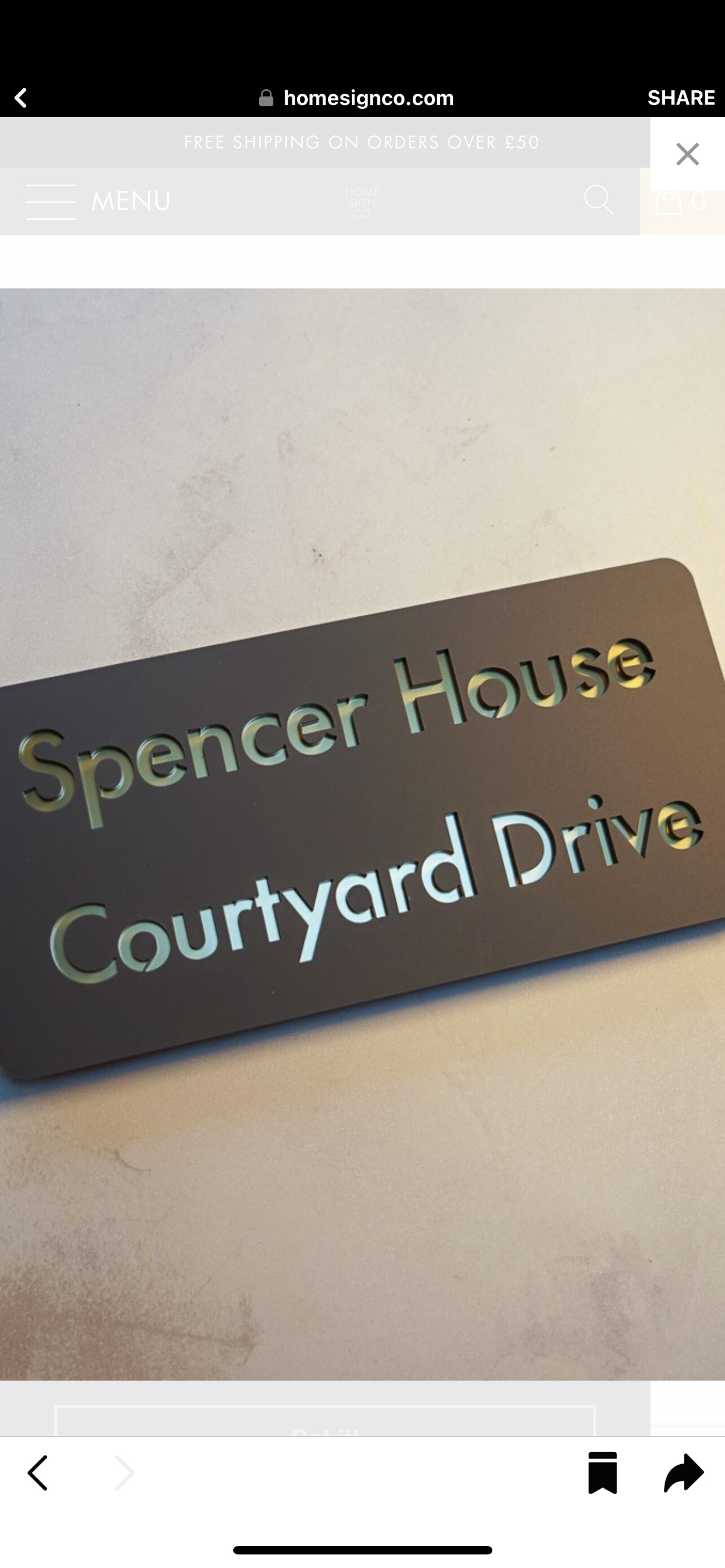
Does anyone know what this kind of font is please, Im looking at layering signs
Looks like a standard font. Arial maybe. Then someone added the small lines to keep the centers.
Edit: not Arial. The u and y are different.
Corbel is close. d’s are different.